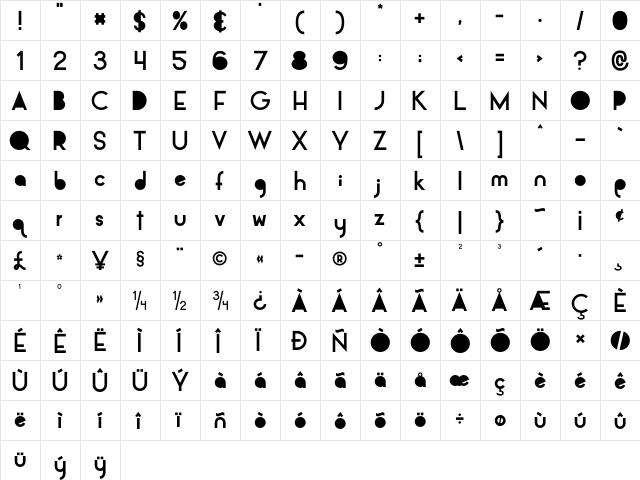
Alpaca Solidify Regular
Design Context for Alpaca Solidify Typeface
Alpaca Solidify takes a measured approach to typography — its balanced proportions and neutral character make it a reliable workhorse for both digital and print work.